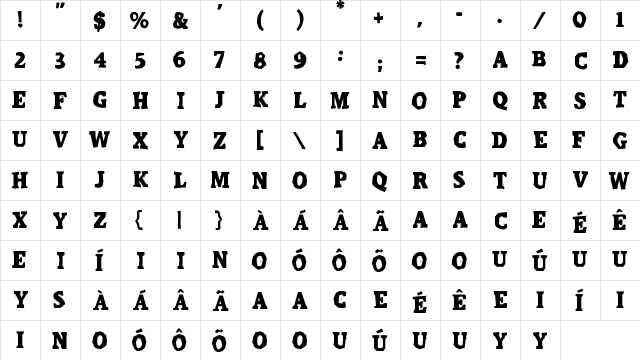
CalangoRevi Regular
| Designer | William Medeiros |
Design Context for CalangoRevi Typeface
CalangoRevi carries an unsettling edge — its distorted letterforms are built to unsettle, perfectly suited to horror, Halloween, and dark creative work.
Perfect for anything that needs to unsettle — game titles, horror branding, and macabre invitations.
Font Pairing: Pair with a clean neutral sans-serif for body copy to let CalangoRevi's character lead without overwhelming the composition.
Pro Tip: Use CalangoRevi at larger display sizes for maximum impact. Consider generous tracking to let the disturbing character of each letterform breathe.